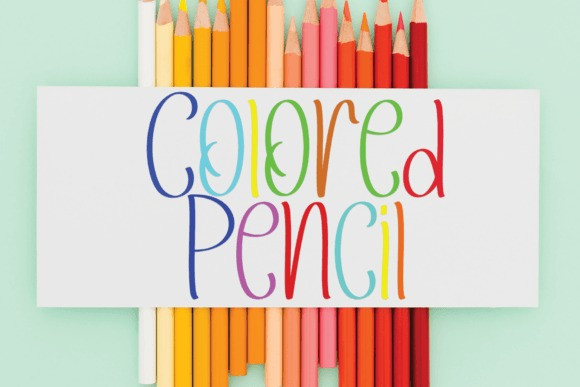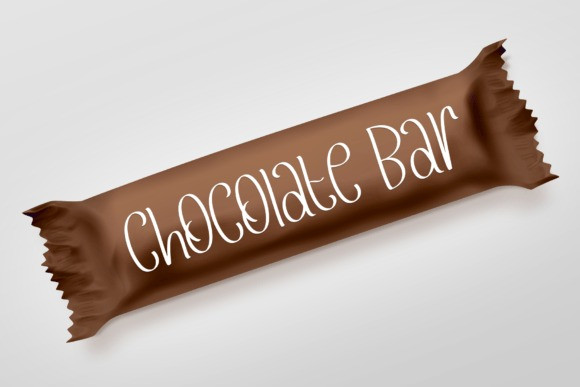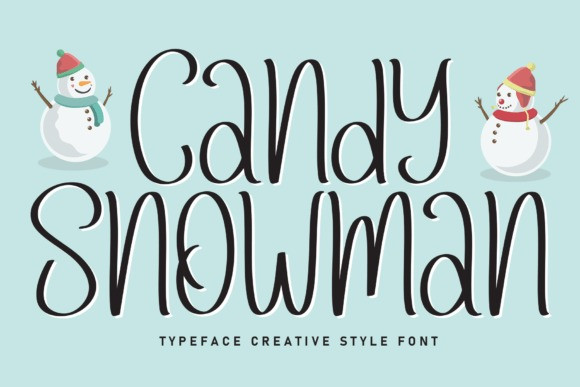
Candy Snowman Typeface
Candy Snowman Font is a sweet and friendly handwritten font. Its natural and unique style makes it incredibly fitting to a large pool of designs. The only limit is your imagination!